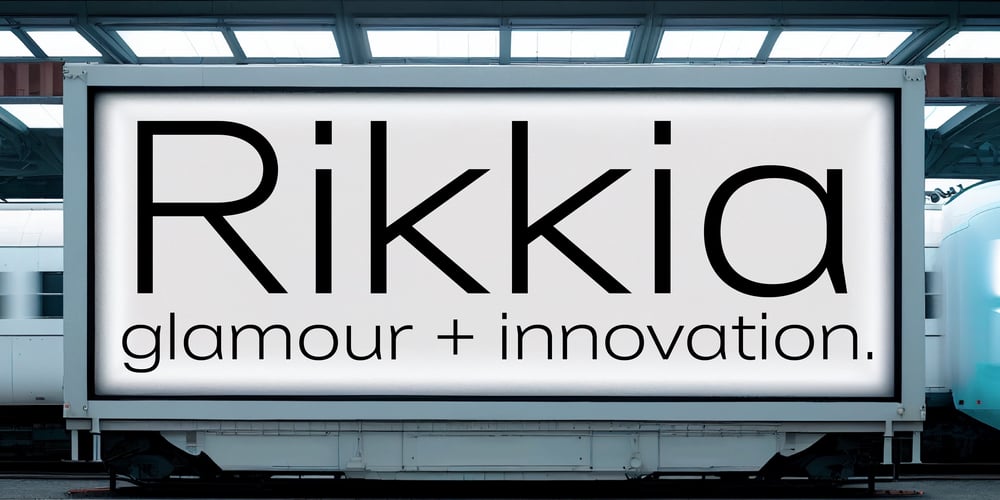
Rikkia Font Family was designed by Matt Chansky and published by Matt Chansky. Rikkia contains 28 styles and family package options. Rikkia is synonymous with glamour and innovation and has an immediate high-end look that is both timeless and universally appealing. The font family is distinguished by modern ovals and subtle architectural angles. Stylish and versatile, Rikkia comes in wide and standard widths โ from hair to bold. The font also has an alt character set for key glyphs like “a” and “R.” You’ll find a professional set of ligatures, multilingual options, fractions, and a the estimated symbol. Cosmetics, AI, engineering, healthcare, sports, editorial โ and all points in between, Rikkia has you covered for a variety of layout needs. Clean, distinctive, memorable, and easily readable โ an ideal choice for both print and screens.